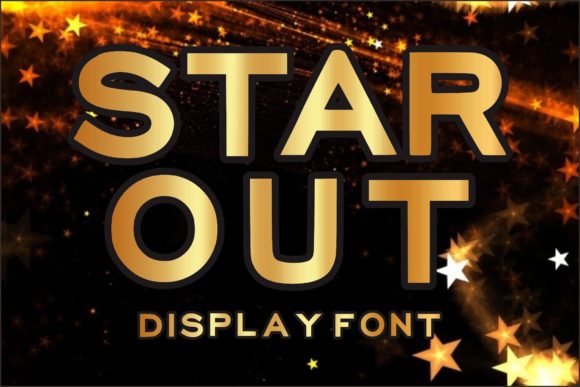
Are you ready to make your designs sparkle with a touch of dazzling distinction? Look no further than Star Out, the captivating display font that radiates vibrancy and elegance! This modern creation by Riki.studio is not just a font; it's a gateway to unlocking your creative potential.
Star Out gleams with a confidence that radiates through its every curve and stroke. Its carefully crafted details will transform your projects into masterpieces, leaving an imprint of sophistication and allure wherever you use it. Whether you're designing product packaging, breathing life into t-shirts and labels, or creating captivating posters and logos, Star Out's versatility will astound you.
With Star Out, you'll discover a world of possibilities that extend beyond the ordinary. Its unique charm shines brightest when paired with fashion-forward designs, adding an edge of modernity and sophistication. It's the perfect companion for logos and branding, capturing the essence of your brand with a visual identity that exudes style and boldness.
Star Out is more than just a font; it's an invitation to embark on a creative journey where your imagination takes center stage. Its versatility empowers you to explore a myriad of design avenues, from eye-catching social media graphics to stunning website layouts. With Star Out by your side, your designs will command attention and leave a lasting impression.
So, unveil the brilliance that awaits with Star Out and redefine the boundaries of your creativity! Let your imagination soar as you harness the power of this captivating display font to craft designs that captivate hearts and leave an indelible mark on the world.